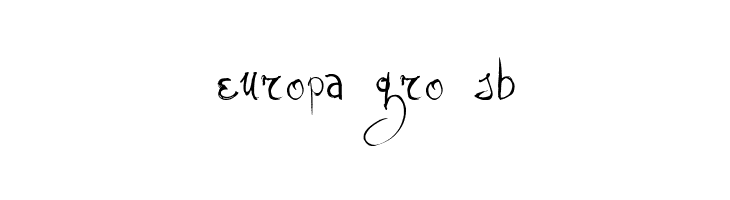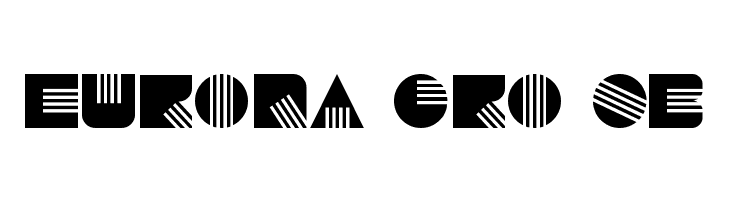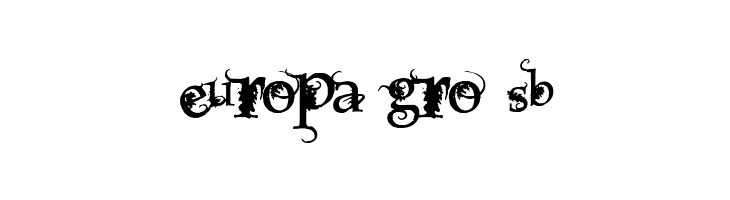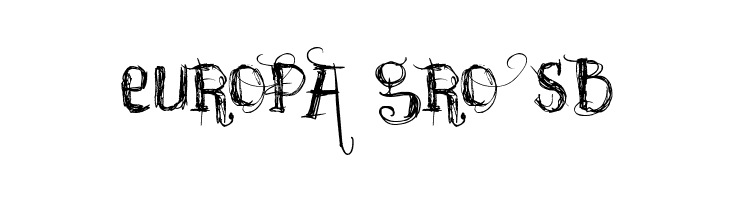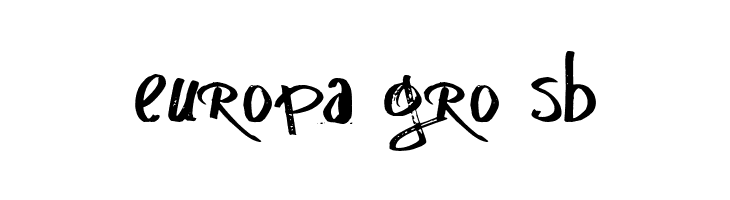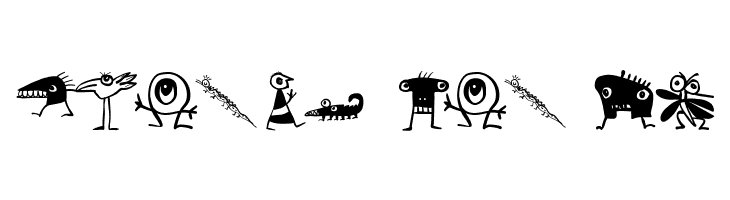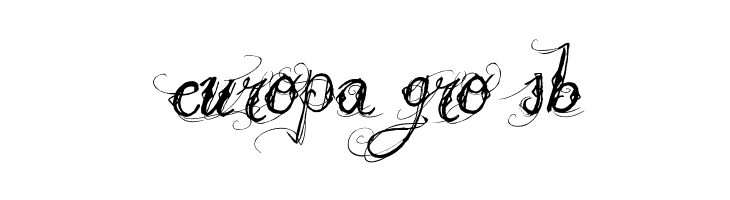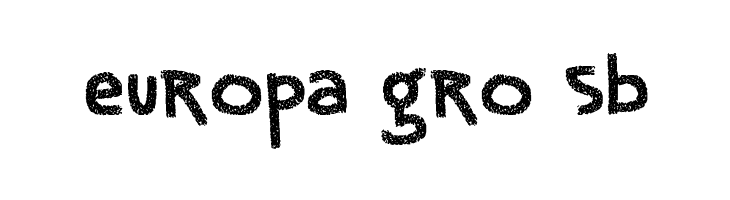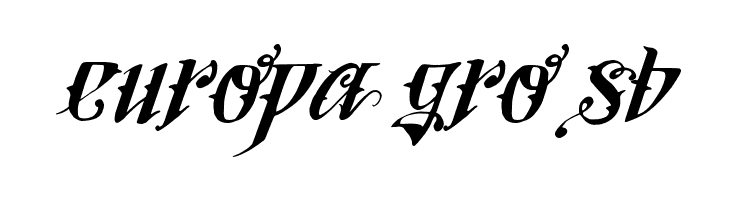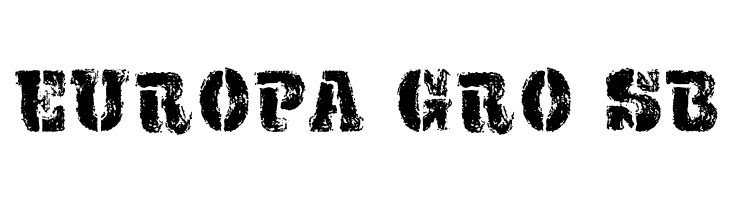
An ornate and decorative script font with intricate swirls and flourishes.
A bold, distressed font with a grunge style and rugged appearance.
A decorative font with elaborate swirls and gothic-inspired embellishments.
An ornate, italicized decorative font with elaborate swirls and flourishes.
A bold, textured, hand-drawn style font with a playful and energetic vibe.
A grungy, hand-drawn font with a textured, sketch-like appearance.
A decorative, hand-drawn font with swirling lines and sharp edges.
An expressive, brush-style font with dramatic strokes and a graffiti-like appearance.
A whimsical collection of decorative animal-like characters with a hand-drawn style.